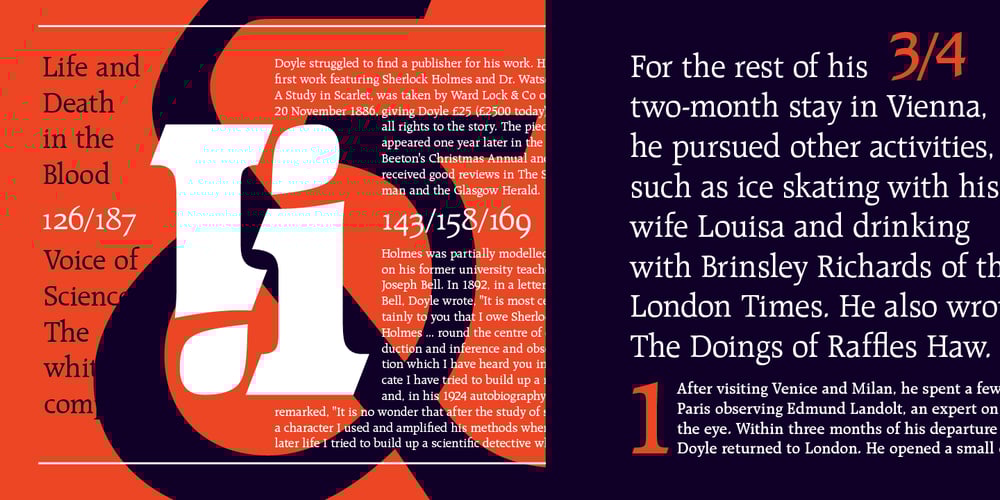
Raleigh
Raleigh font
Raleigh Font Family was designed by Adrian Williams, Carl Dair, David Anderson, Vladimir Yefimov, Robert Norton and published by ParaType. Raleigh contains 6 styles and family package options. Raleigh is a contemporary old-style serif with calligraphic features, suitable for both text and display typography.Originally produced in 1977 by Robert Norton, Raleigh is based on Carl Dair’s Cartier typeface, designed for the 1967 Montreal World’s Fair.The typeface was renamed to Raleigh after Dair’s death. Adrian Williams expanded the font with three additional weights for display, while Robert Norton focused on developing the text versions.In 2001, the Cyrillic version was developed by Vladimir Yefimov at Paratype.Raleigh main characteristics:- 6 styles in total- 626+ glyphs in each style- 14 OpenType features, including Oldstyle figures- Latin and Cyrillic supportAnd if you need font files in different formats or want to try this font, just drop us a line at info@paratype.net, and we’ll work something out.